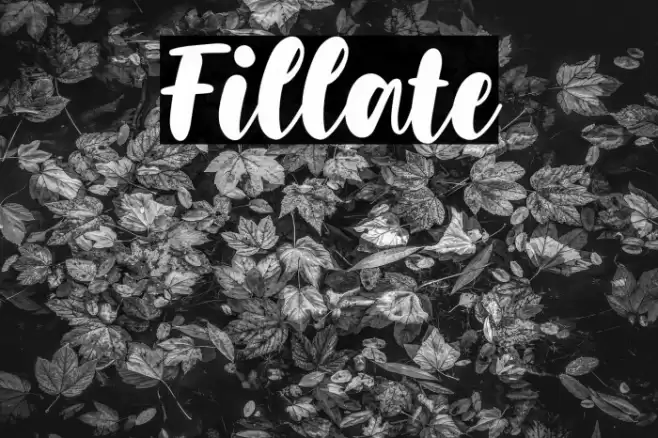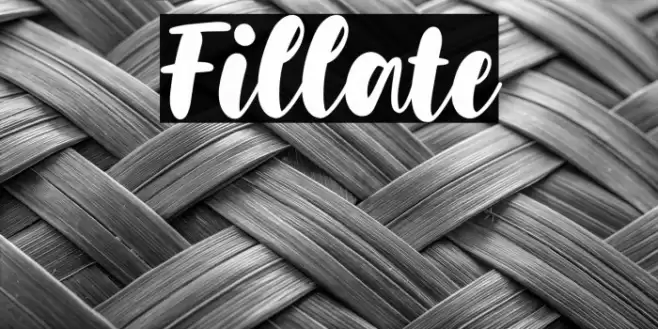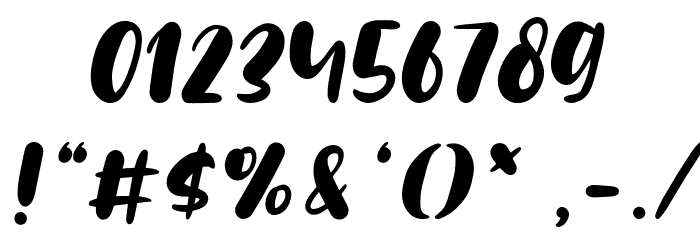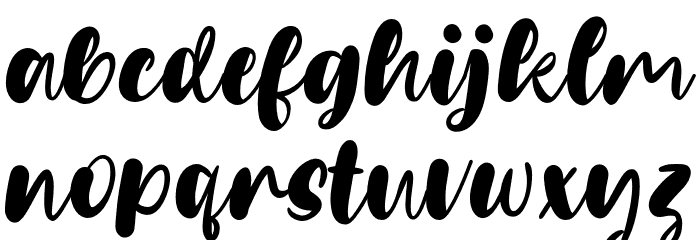
Fillate Font
Fillate Description
This font features a bold and expressive script style, characterized by its fluid and dynamic strokes. The letters are interconnected, creating a sense of movement and elegance. The uppercase letters are tall and commanding, while the lowercase letters maintain a consistent flow, enhancing readability. The numbers and special characters are designed to complement the overall aesthetic, making it versatile for various design needs. The font's playful yet sophisticated appearance makes it suitable for creative projects that require a touch of personality.
A bold, expressive script font with fluid, interconnected strokes from Regular fonts.